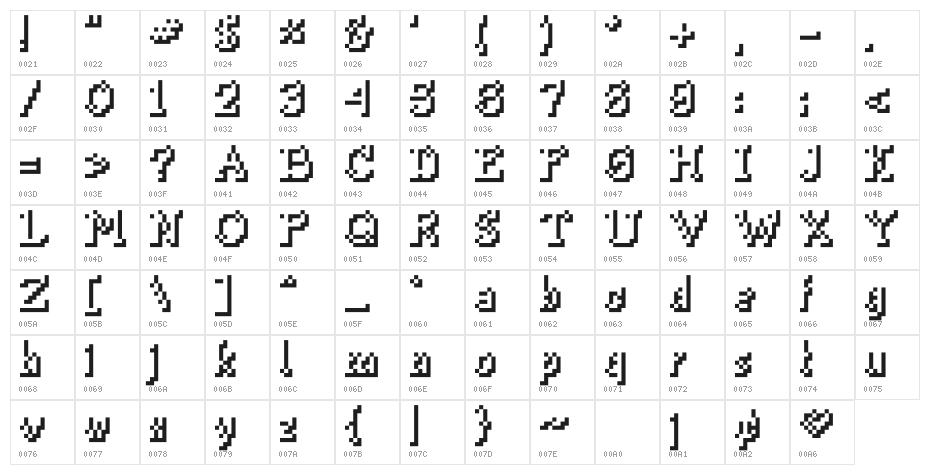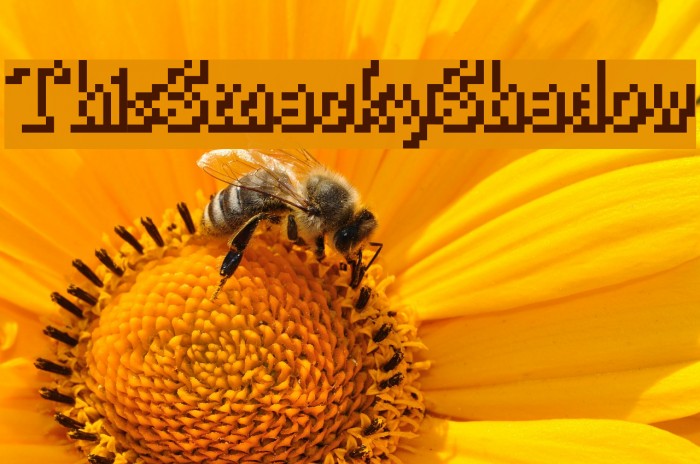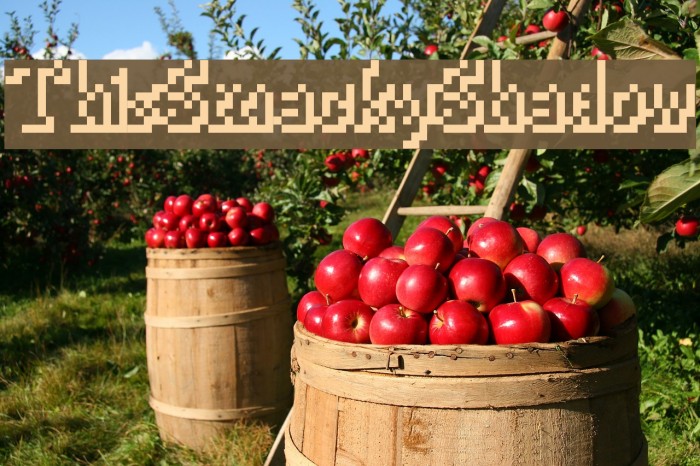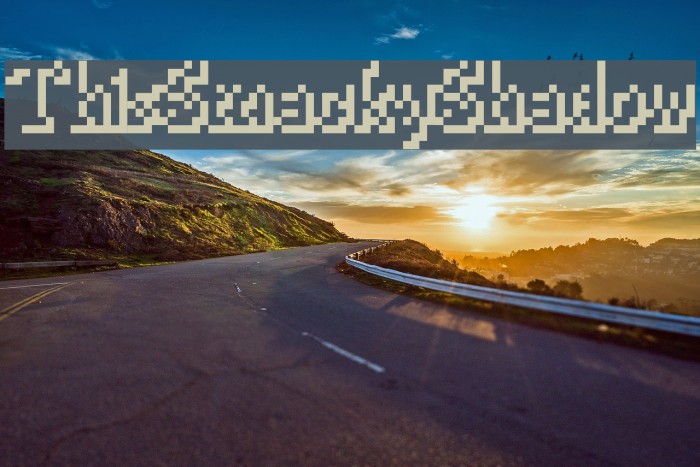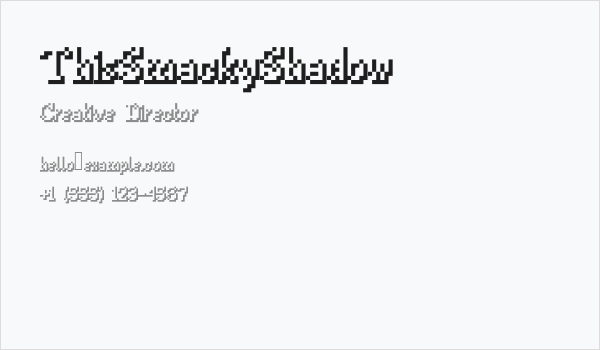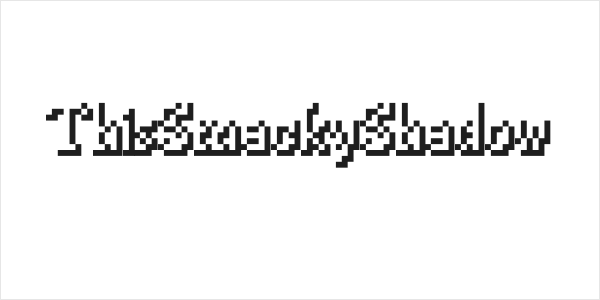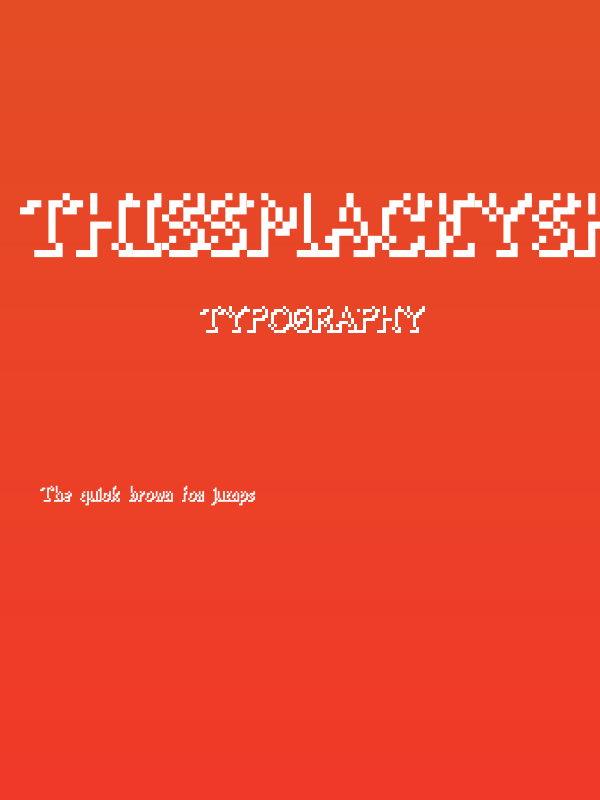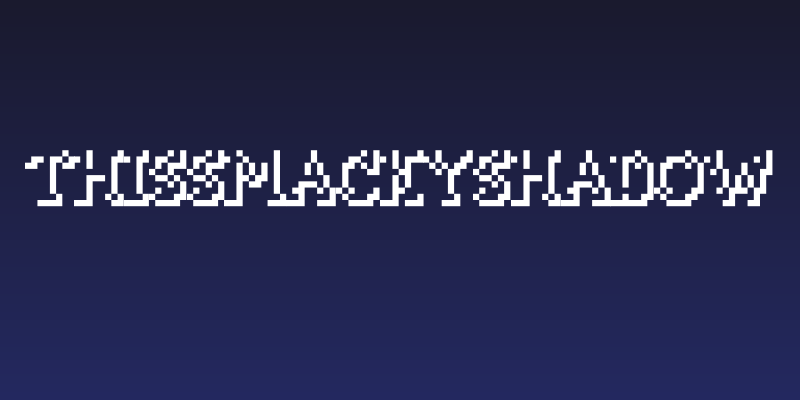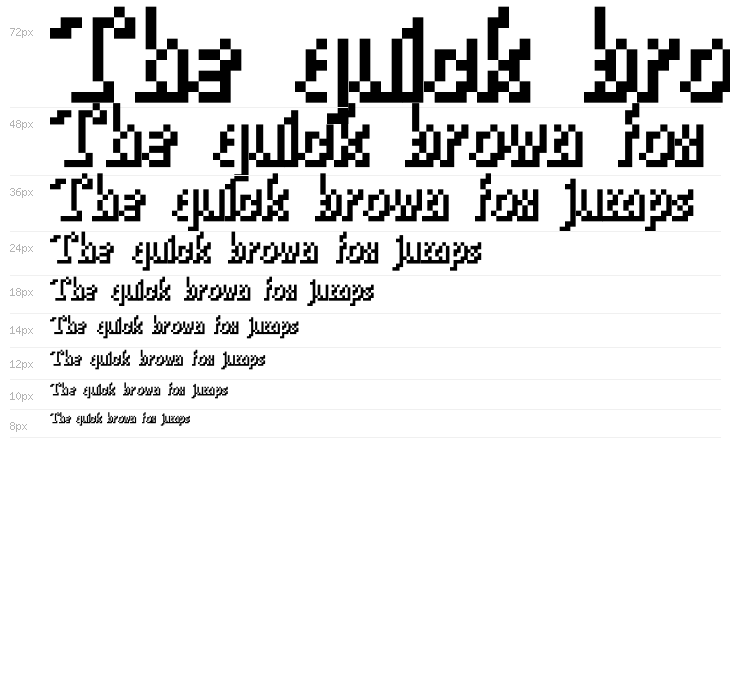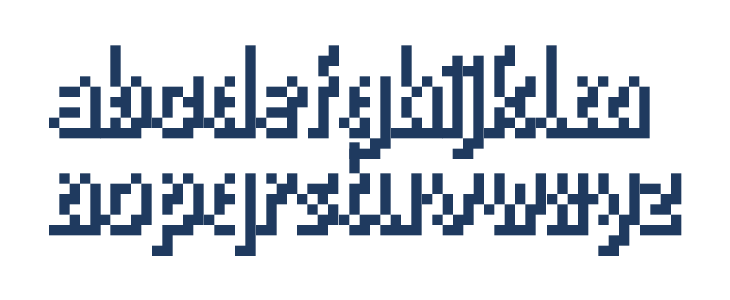
ThisSmackyShadow Font
ThisSmackyShadow Description
This font features a pixelated, blocky design reminiscent of early digital or video game aesthetics. Each character is composed of small square blocks, creating a retro and nostalgic feel. The uppercase and lowercase letters maintain a consistent height, while the numbers and special characters follow the same pixelated style. The font's geometric nature gives it a structured and uniform appearance, making it stand out with its unique shadow effect that adds depth and dimension.
Hazel Abbiati - diamondidiocy.tumblr.com
| Overall Style | Retro, Digital |
| Proposed Projects | Ideal for video game design, retro-themed posters, digital art projects, and any creative work that requires a nostalgic or tech-inspired look. |